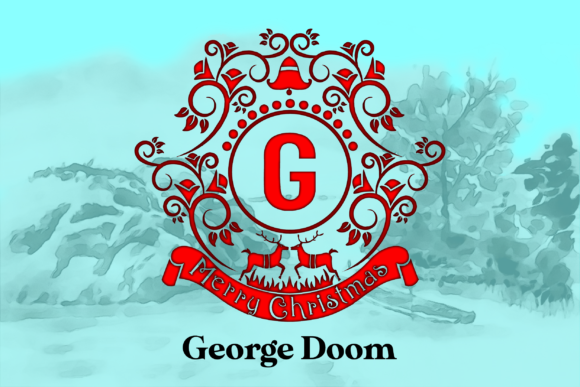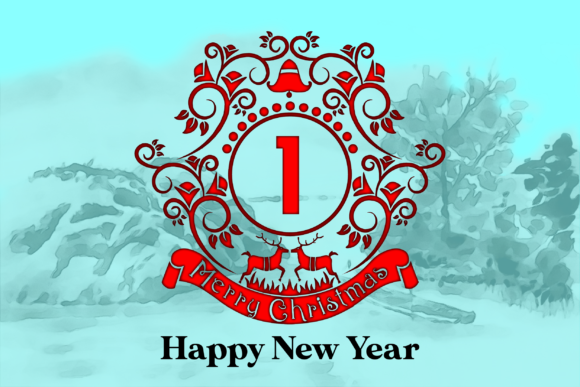
Introducing Deer Mast Font: A Festive Monogram Font for Christmas Celebrations
Are you looking for a unique and captivating font to make your Christmas souvenirs and designs stand out? Look no further than Deer Mast Font, a monogram font that is sure to add a touch of festive flair to your creations. In this article, we’ll dive into the details of Deer Mast Font, exploring its interesting visual elements, uses, and benefits for designers and crafters.
What is Deer Mast Font?
Deer Mast Font is a specially designed monogram font that features intricate and visually appealing elements. Its unique design makes it an excellent choice for Christmas-themed designs, souvenirs, and other festive projects. The font’s distinctive style is sure to grab attention and leave a lasting impression on your audience.
Key Features of Deer Mast Font
- Monogram Design: Deer Mast Font is a monogram font, which means it’s designed to create stunning initials and logos.
- Intricate Details: The font features intricate details that give it a unique and festive look.
- Christmas Theme: The font’s design is inspired by Christmas, making it perfect for holiday-themed projects.
- Versatile: Deer Mast Font can be used for a variety of purposes, from souvenirs to digital designs.
Uses of Deer Mast Font
Deer Mast Font is an incredibly versatile font that can be used in a variety of ways. Here are some ideas to get you started:
- Christmas Souvenirs: Use Deer Mast Font to create personalized Christmas ornaments, gift tags, and cards.
- Digital Designs: Add a festive touch to your digital designs, such as social media graphics, blog posts, and email newsletters.
- Stationery: Create custom stationery, including letterheads, invitations, and greeting cards.
- Crafting: Use Deer Mast Font to add a personal touch to your crafting projects, such as scrapbooking and DIY decorations.
Deer Mast Font offers several benefits for designers and crafters, including:
- Unique Designs: The font’s unique design ensures that your creations will stand out from the crowd.
- Time-Saving: The font’s monogram design saves you time and effort, allowing you to create professional-looking designs quickly.
- Customization: Deer Mast Font can be customized to fit your specific needs, making it an excellent choice for bespoke designs.
Tips for Using Deer Mast Font
Here are some tips for getting the most out of Deer Mast Font:
- Experiment with Colors: Try pairing Deer Mast Font with different colors to create unique and eye-catching designs.
- Mix and Match: Combine Deer Mast Font with other fonts to create interesting and dynamic designs.
- Pay Attention to Details: Take the time to adjust the font’s size, spacing, and alignment to ensure optimal results.
Deer Mast Font is a unique and captivating monogram font that’s perfect for Christmas celebrations and festive designs. With its intricate details, versatile uses, and benefits for designers and crafters, it’s an excellent addition to any design toolkit. Whether you’re creating souvenirs, digital designs, or crafting projects, Deer Mast Font is sure to add a touch of magic to your creations.